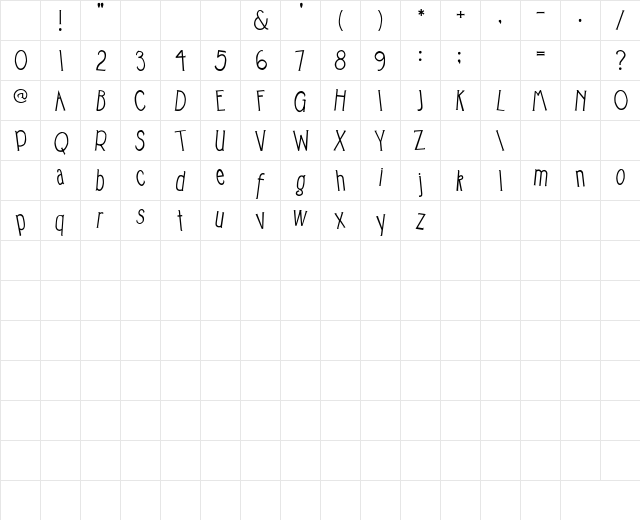
2Peas Rocky Shore Regular
Design Context for 2Peas Rocky Shore
2Peas Rocky Shore is a composed and adaptable typeface that performs quietly and consistently across a wide range of design contexts.